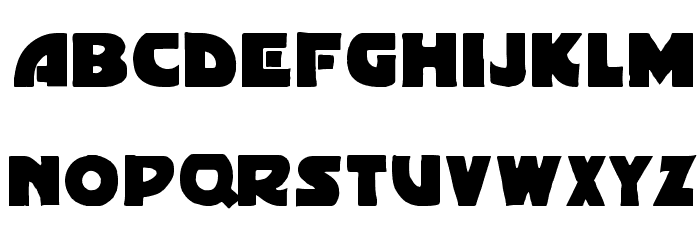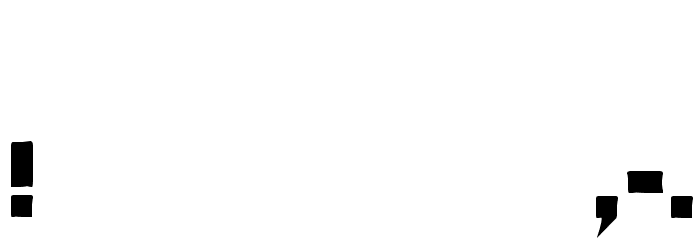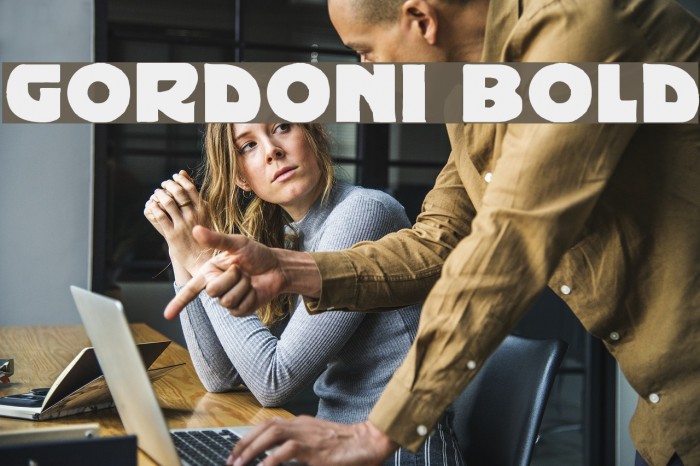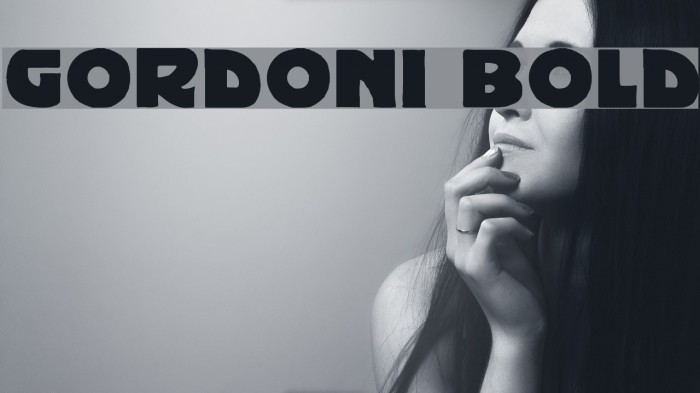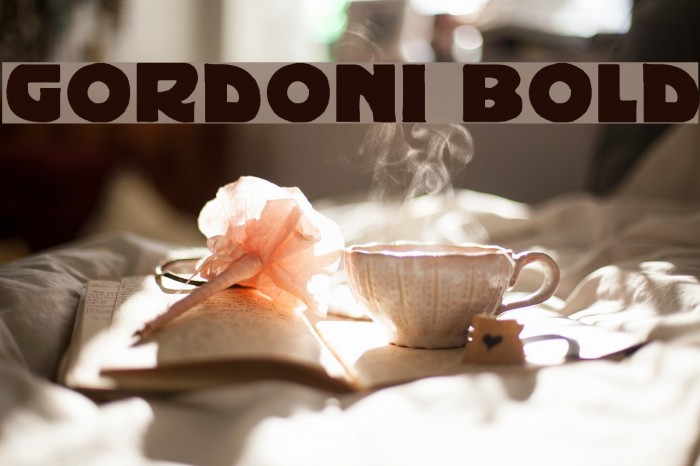
Gordoni Bold Font
This font features a bold and striking design with a strong presence. The characters are constructed with thick, block-like strokes that give it a robust and powerful appearance. The uppercase letters exhibit a uniform height, while the lowercase letters maintain a consistent style that complements the uppercase. The font's geometric shapes and solid forms make it ideal for attention-grabbing headlines and impactful designs. The lack of serifs and the uniform stroke width contribute to its modern and clean aesthetic. This font is well-suited for projects that require a bold statement and a contemporary look.
A bold, geometric font with a strong, modern aesthetic.
- Proposed Projects: Ideal for headlines, posters, branding, and any design requiring a bold statement.